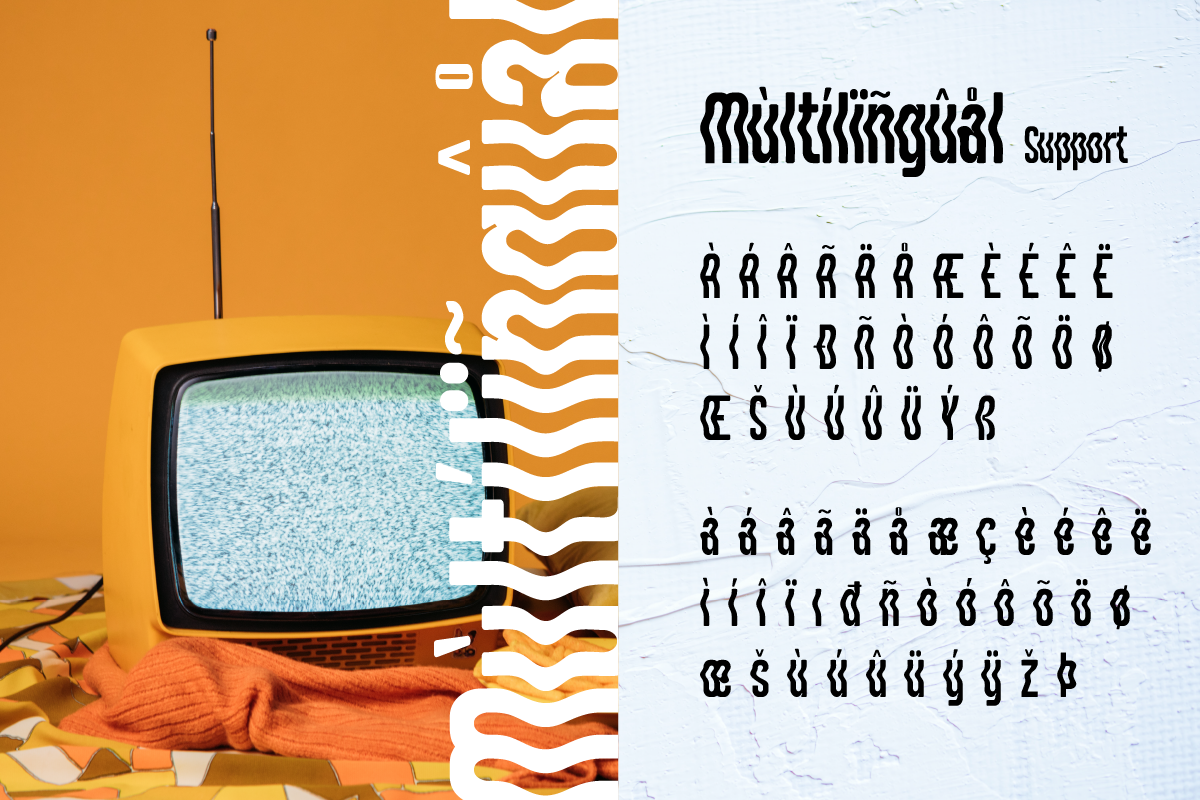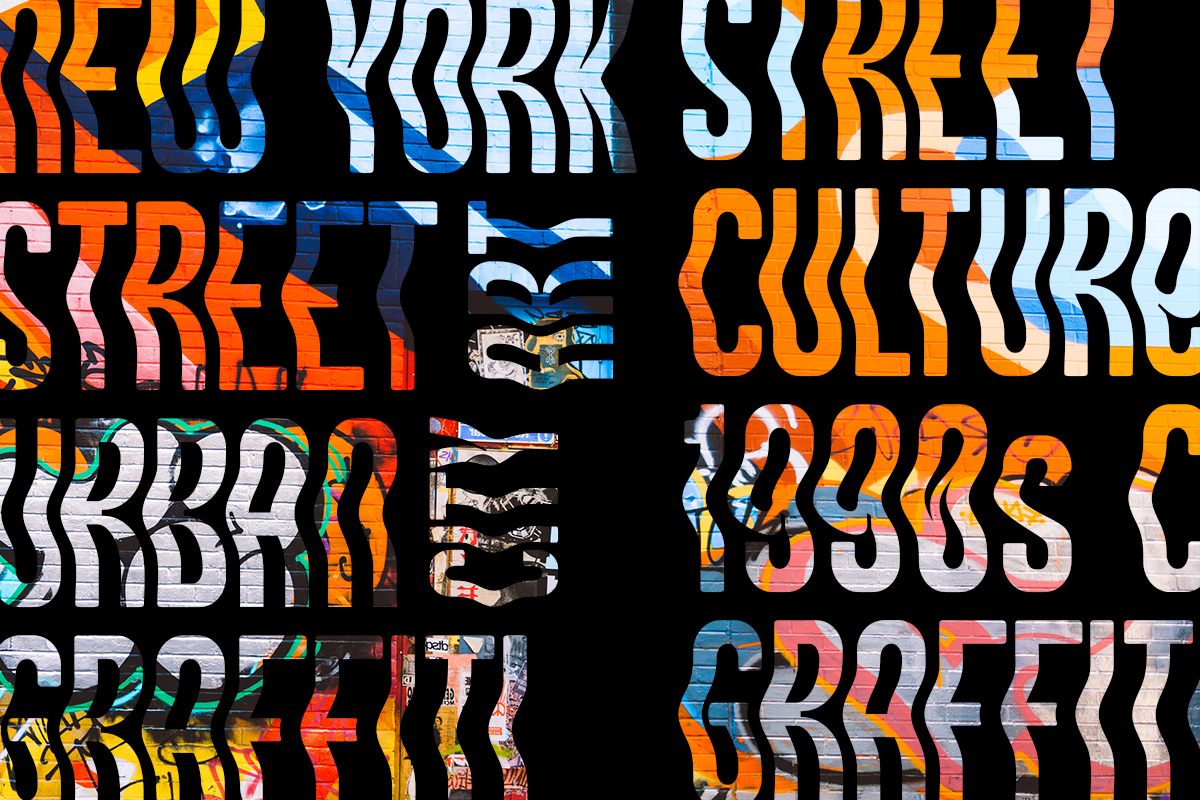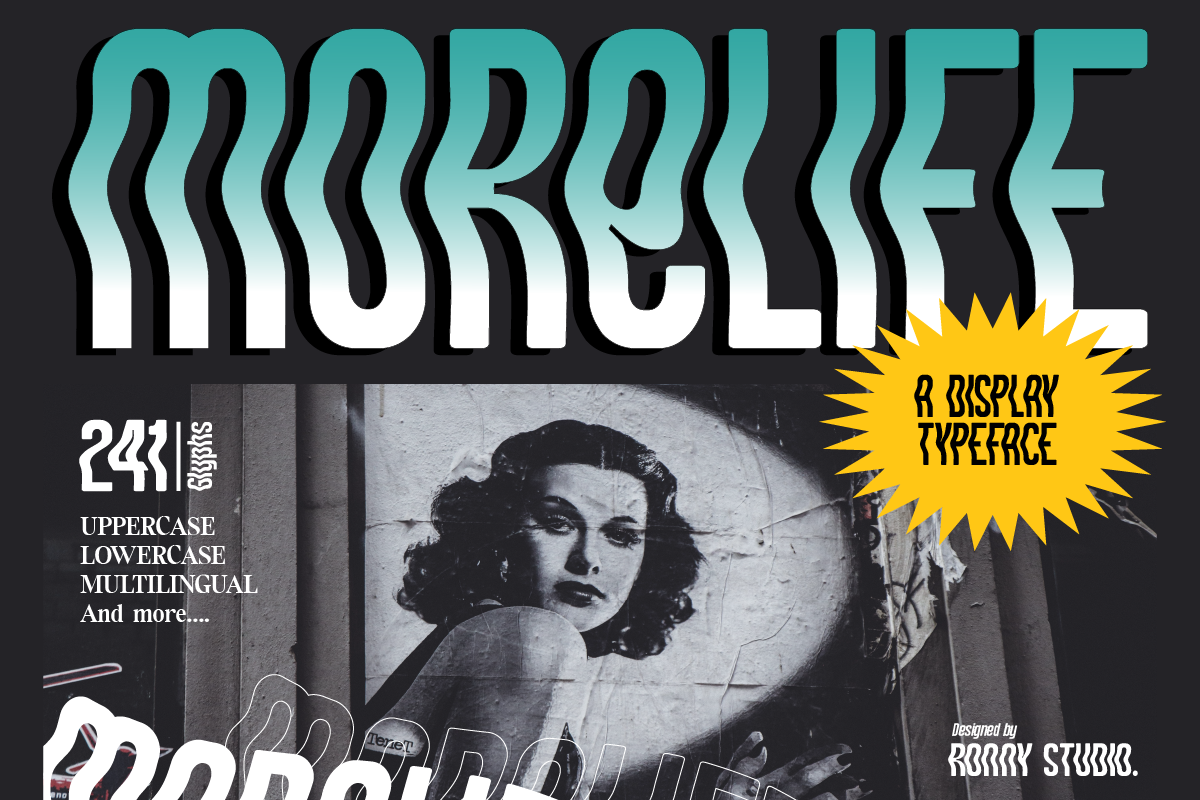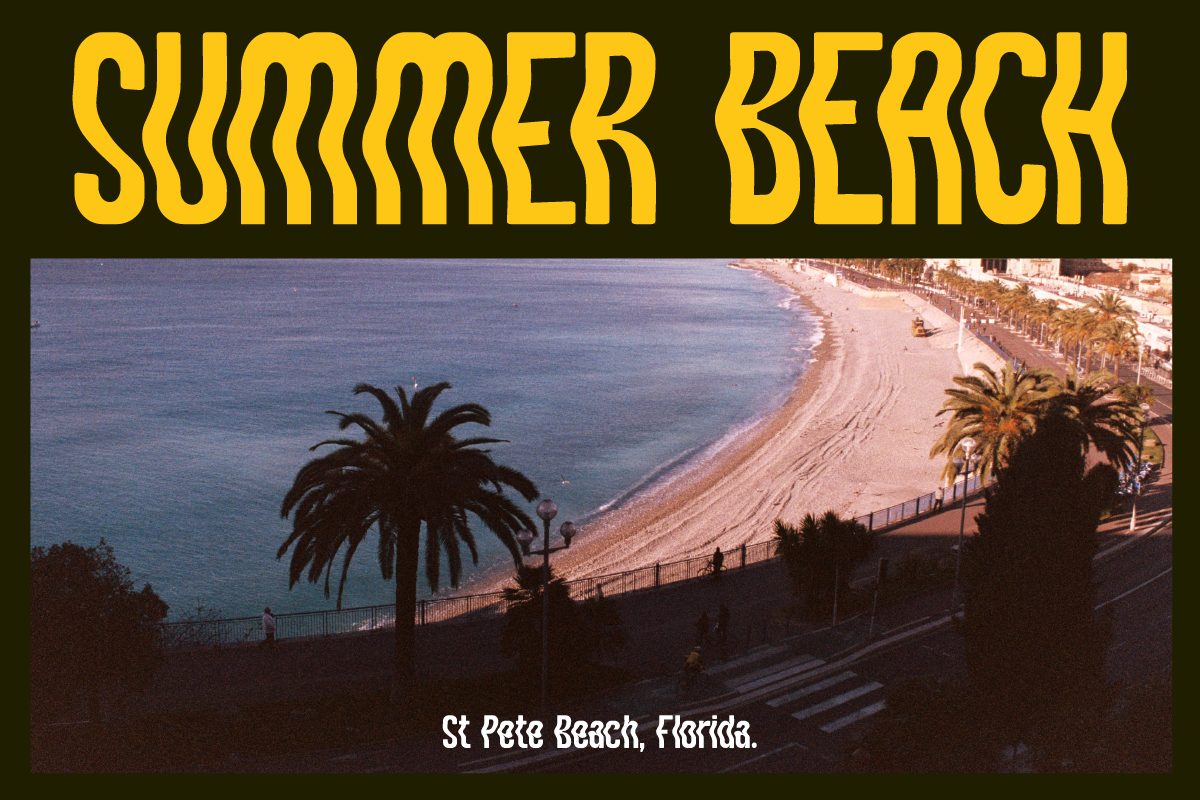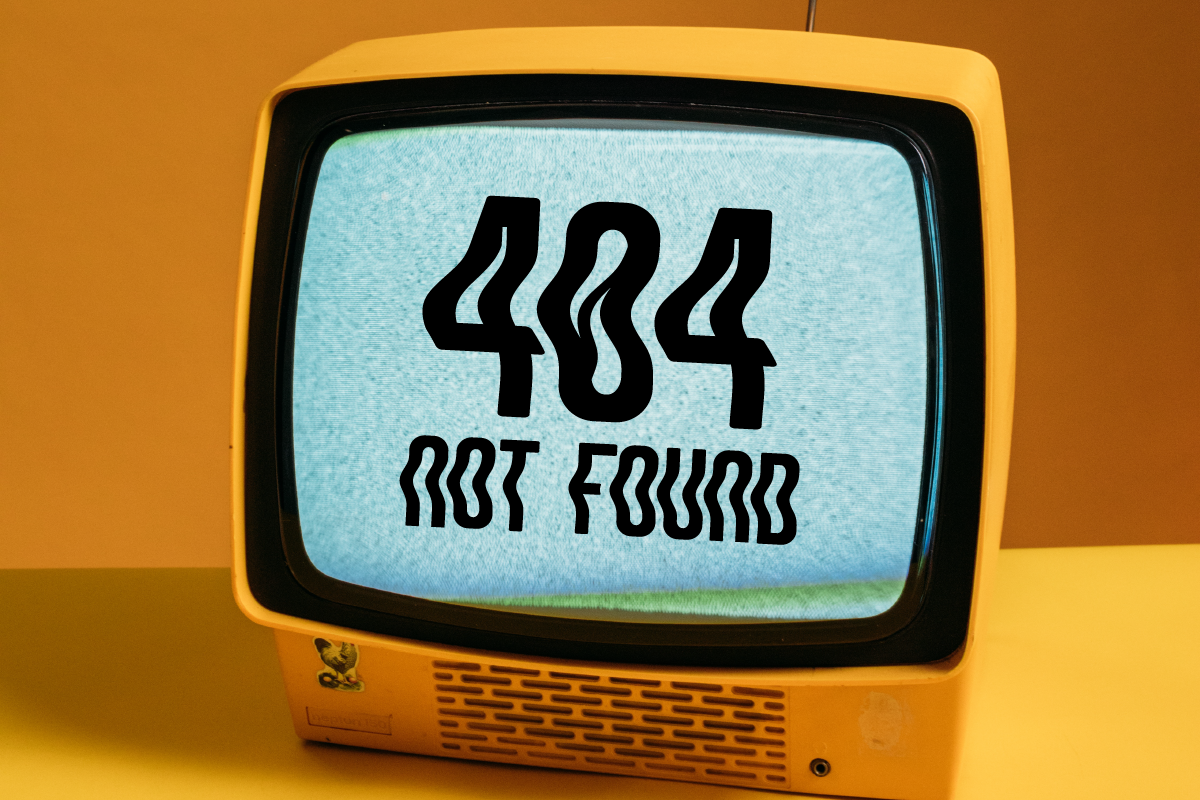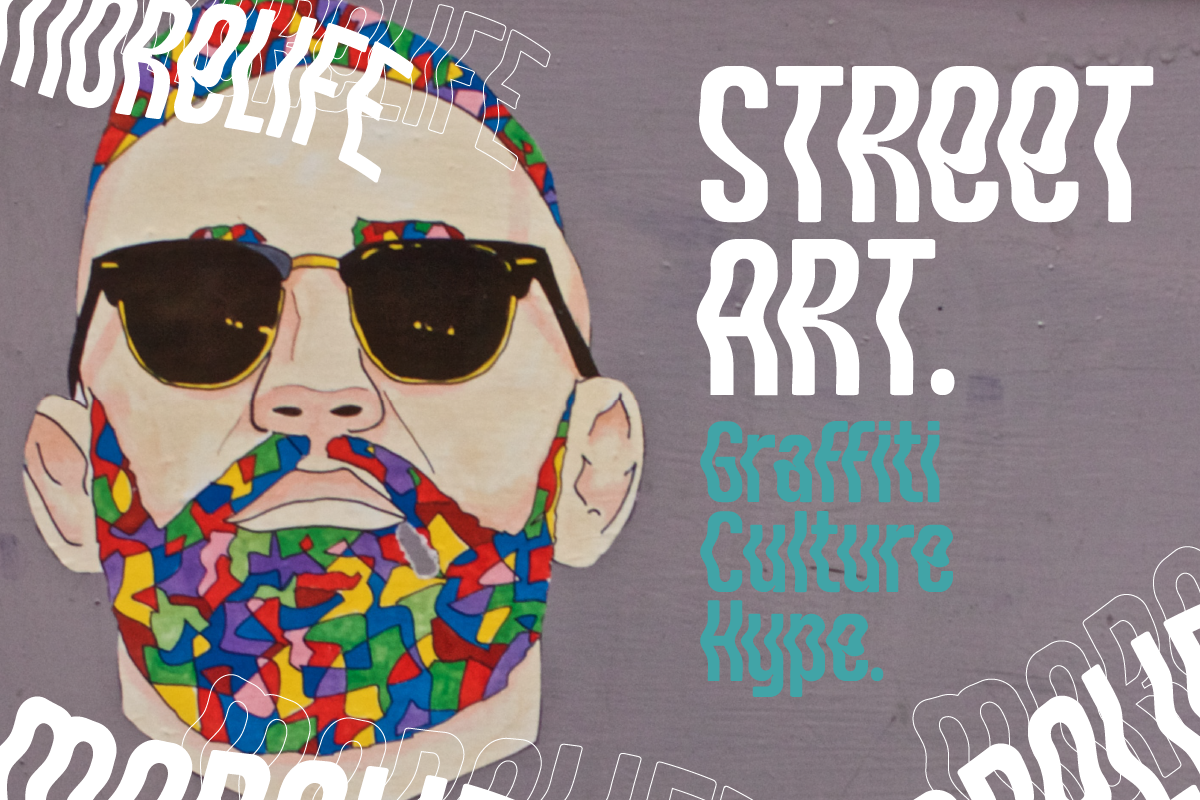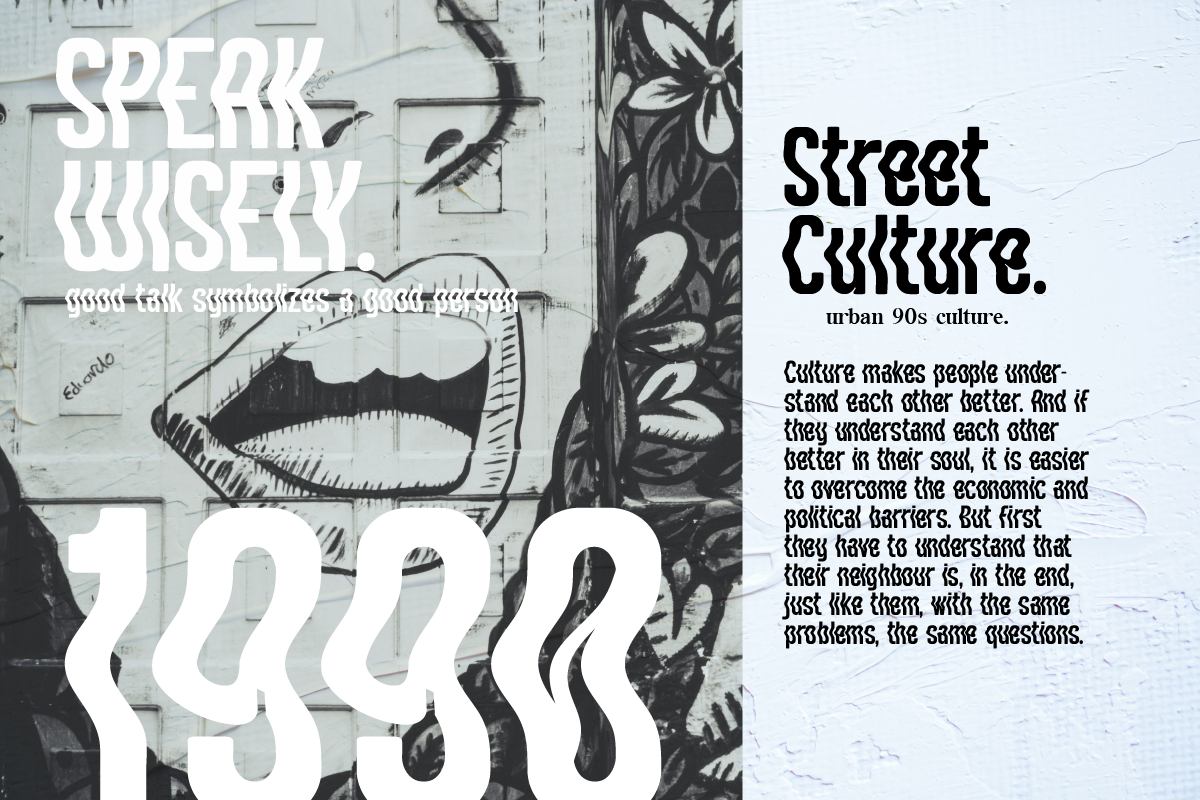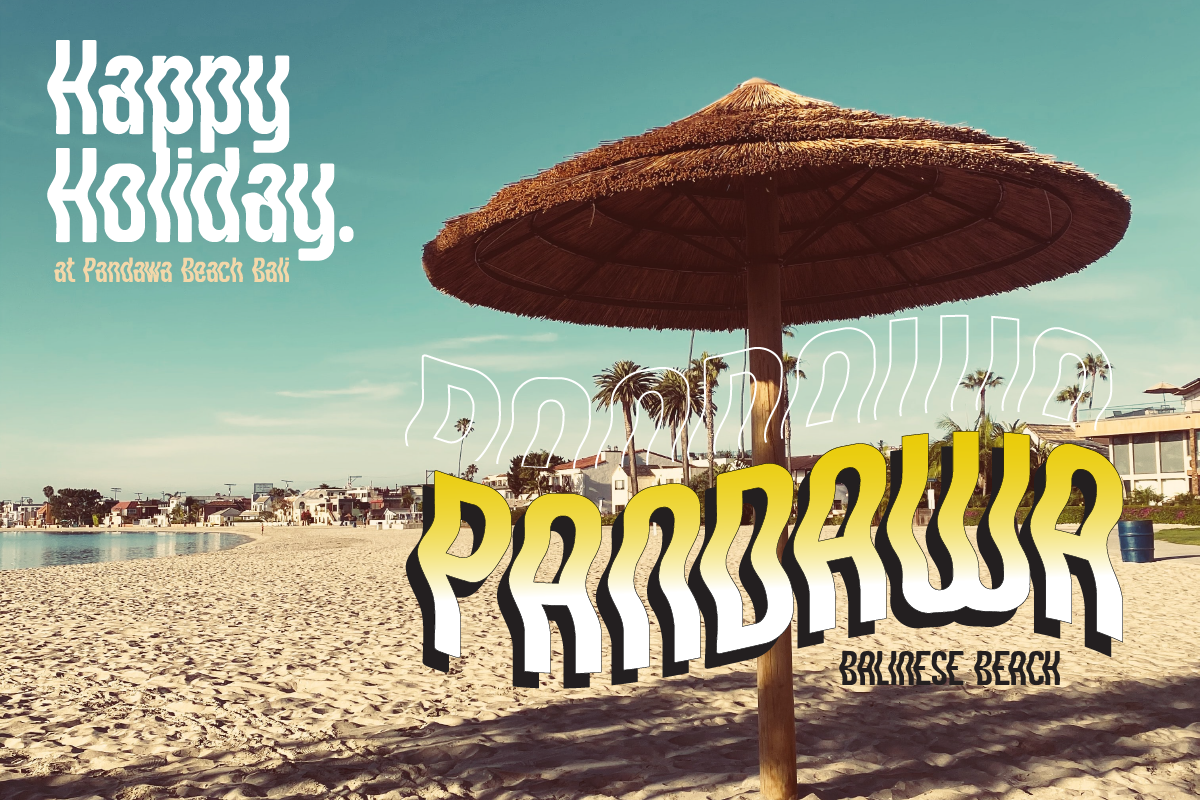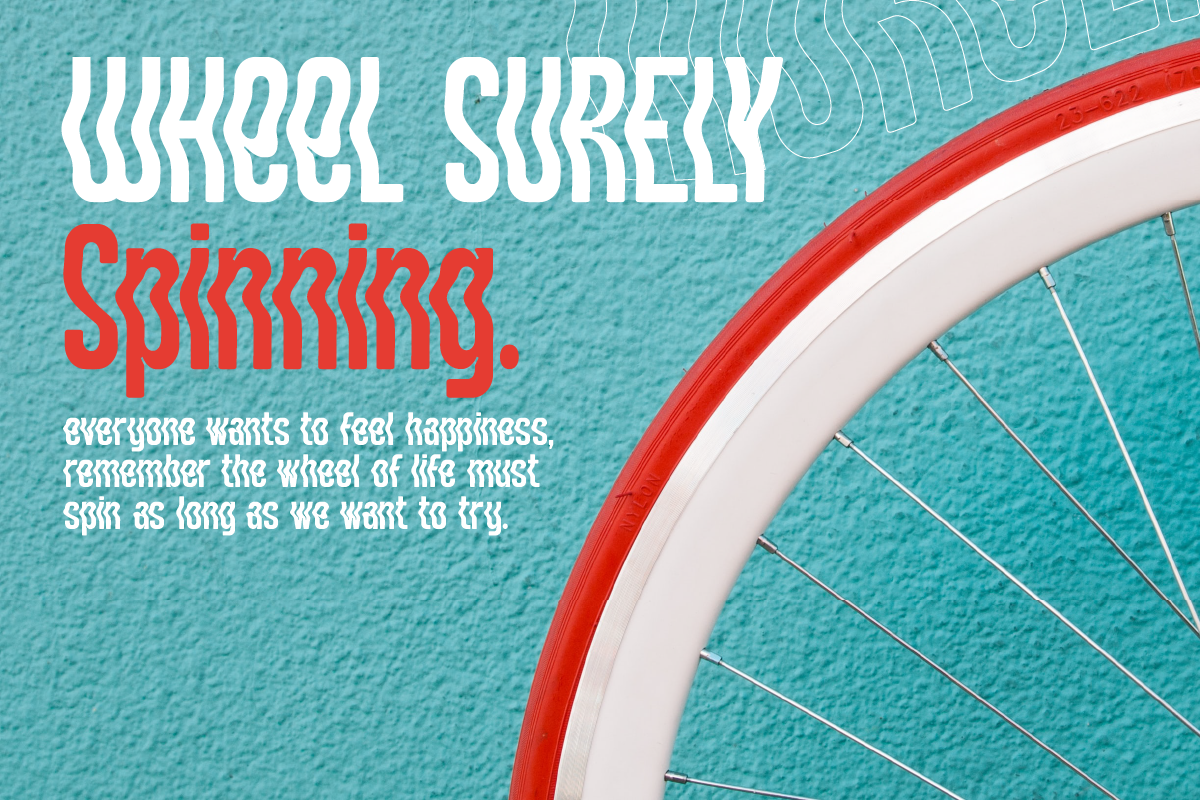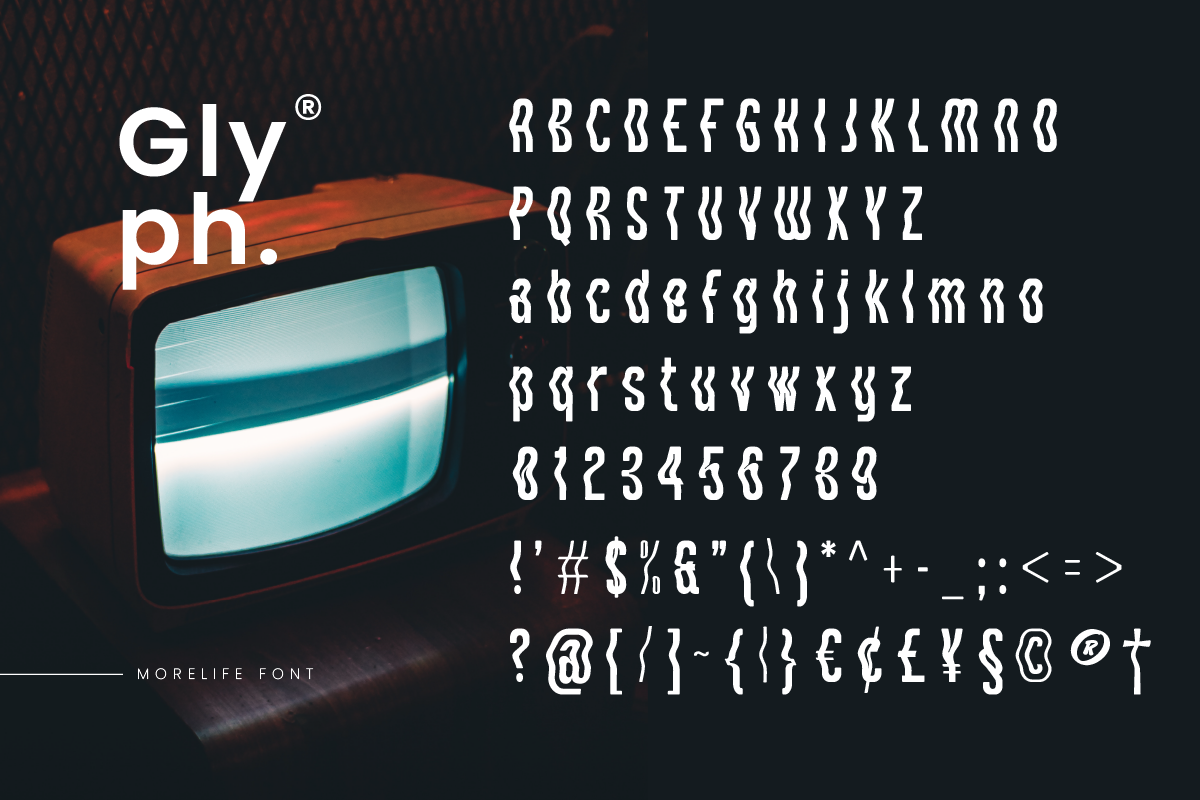
Morelife A Display Typeface
Morlife is a solid & solid typeface with a unique form of the 90s era. This typeface is perfect for event posters, magazine covers, hipster fashion brands, t-shirts, totes, quotes, or stylish text overlays onto any background image.
- Lowercase & Uppercase
- alternates